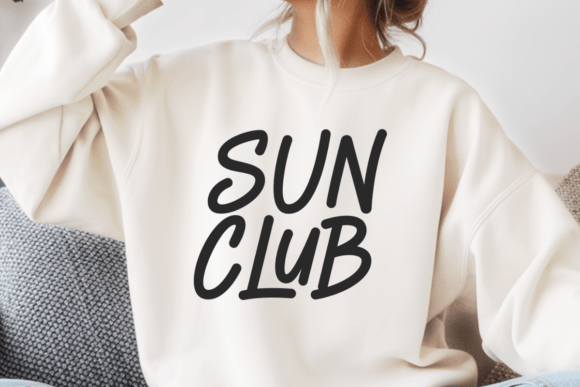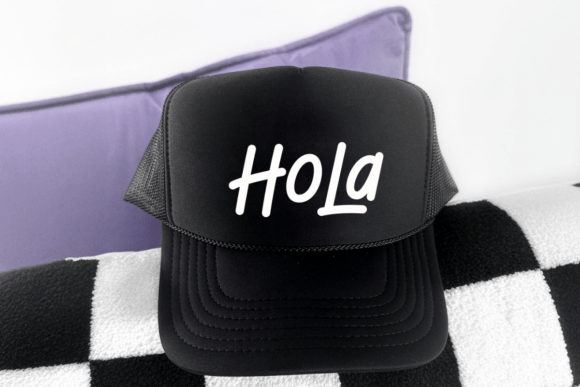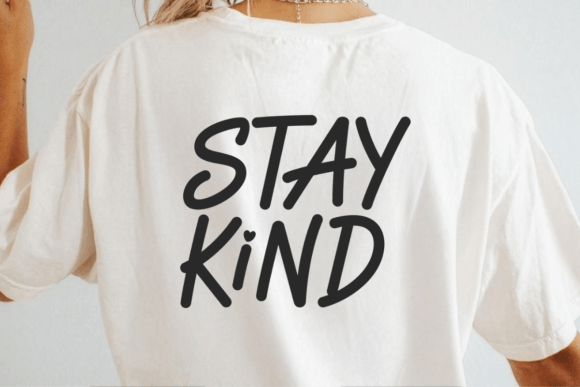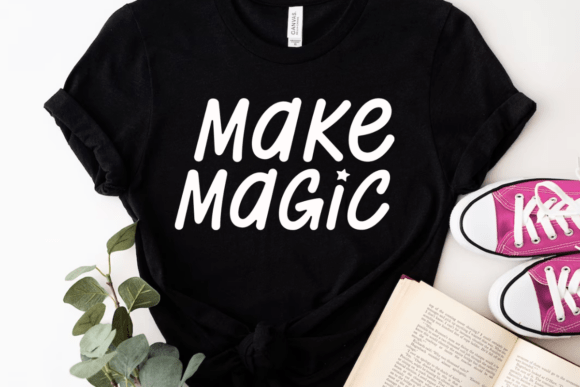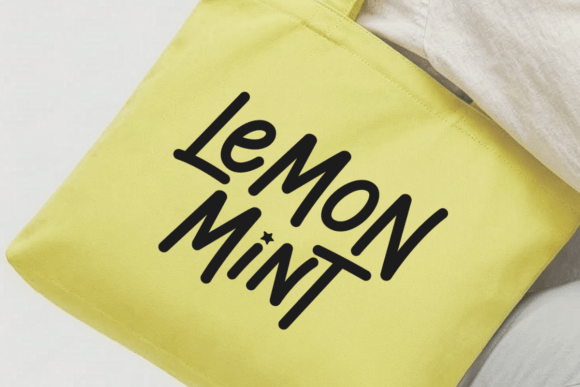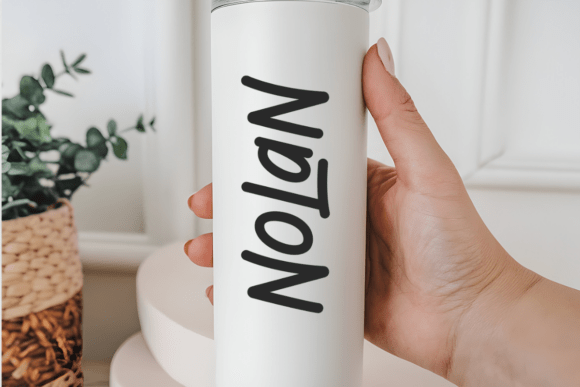
Introduction to Riley Smith Font
Introducing Riley Smith, an exquisitely modern and chic font that boasts fluid handwritten heart characters.
Itโs an aesthetic masterpiece โ beautifully balanced that effortlessly complements an extensive array of designs The ideal pick for crafting captivating logos, defining brand personas, or putting together attention-grabbing quotes, Riley Smith is not just a font, itโs an invitation to creativity.
Key Features of Riley Smith Font
Why Choose Riley Smith Font?
Riley Smith Font offers exceptional quality and versatility, making it a valuable addition to your design toolkit. Whether you’re creating for personal projects or commercial use, Riley Smith Font delivers professional results.